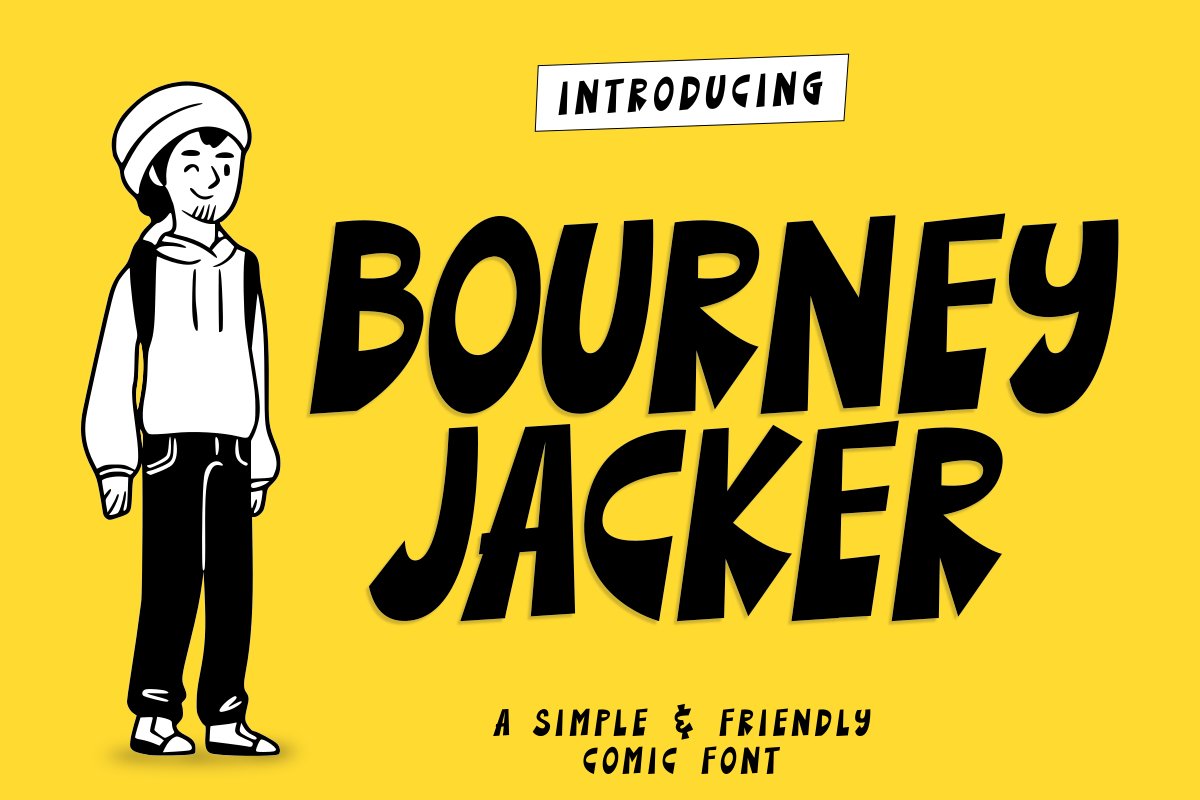
Bourney Jacker
Introducing Bourney Jacker - All Caps Display Font
Great for comics, cartoons, book titles, tshirts, social media, quotes, youtube thumbnail, banners, stickers, mugs, brochures, product labels, packaging, posters, etc.
Multilingual Support.